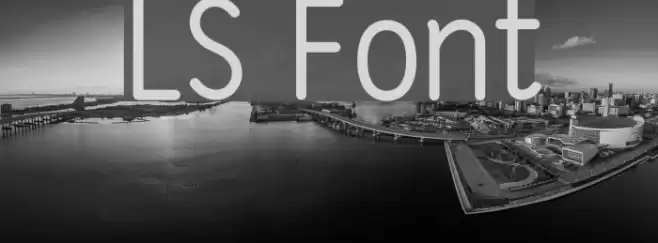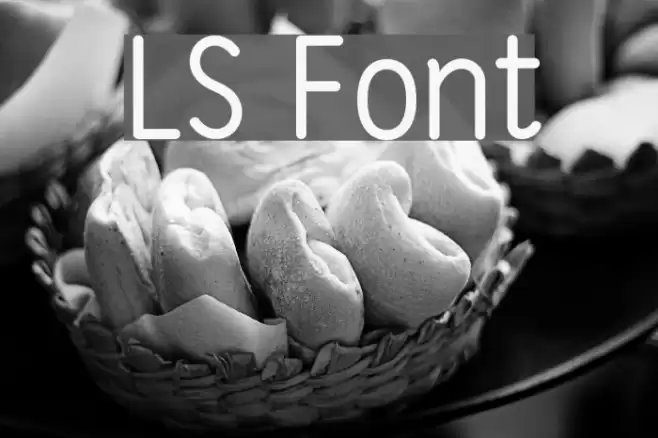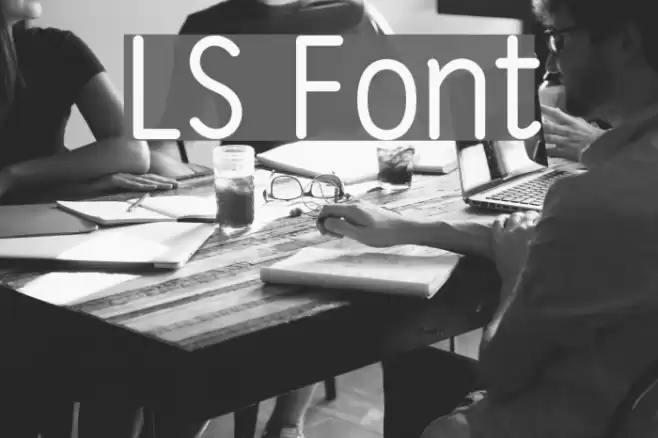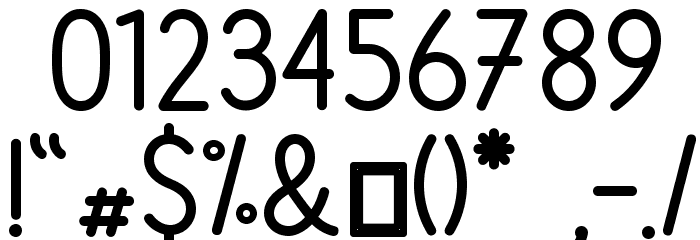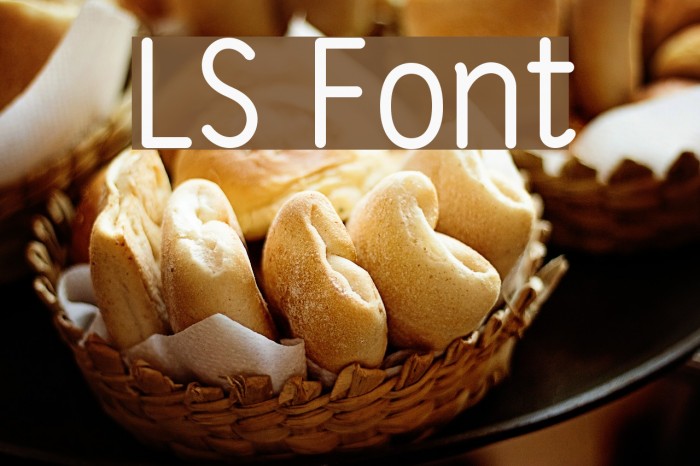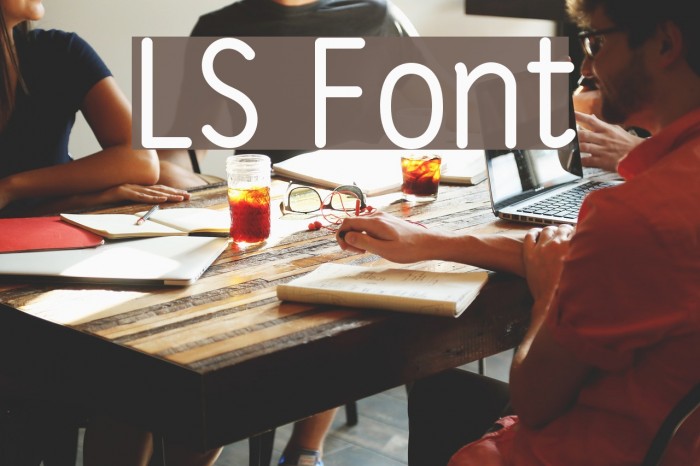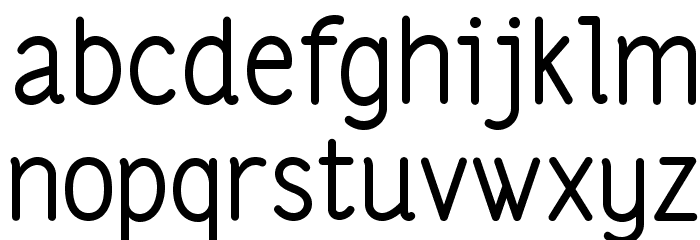
LS
This font features a clean and modern sans-serif style with rounded edges, giving it a friendly and approachable appearance. The characters are evenly spaced, contributing to its readability. The uppercase letters are slightly taller than average, while the lowercase letters maintain a consistent height, enhancing the font's uniformity. The numerals are straightforward and align well with the overall design. Special characters are distinct and maintain the same rounded aesthetic, ensuring they blend seamlessly with the rest of the font. This font is versatile, suitable for both digital and print media, and can be used in various design contexts.
A modern, rounded sans-serif font with clean lines and balanced spacing.